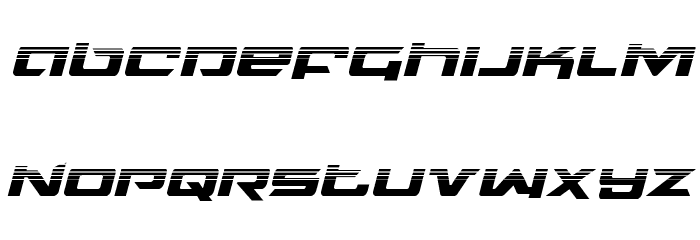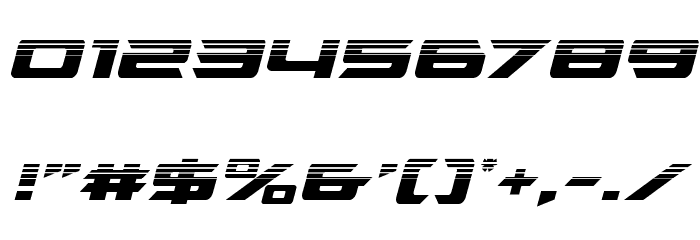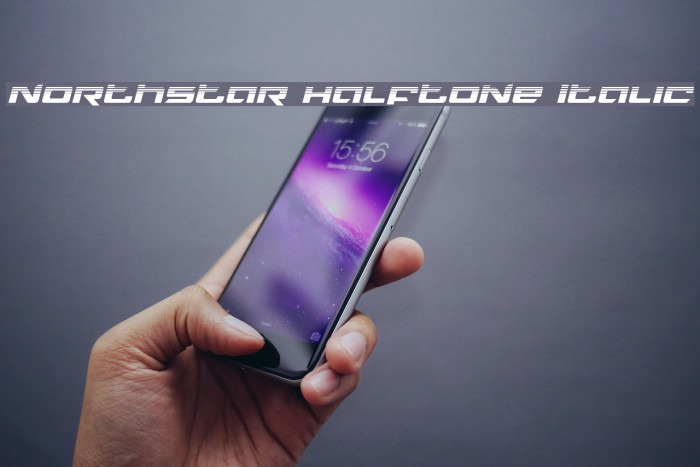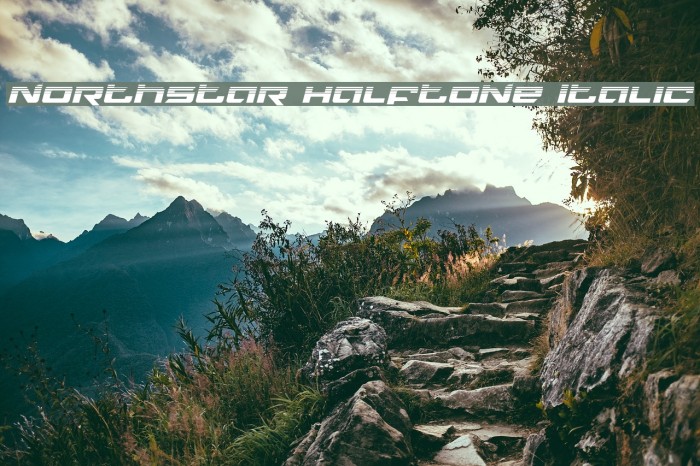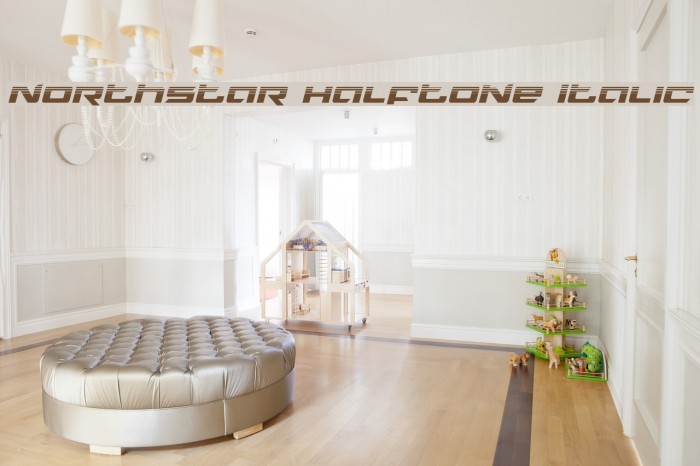
Northstar Halftone Italic Font
This font features a dynamic and futuristic design, characterized by its halftone effect and italicized slant. The characters are bold and geometric, with a distinct horizontal striping pattern that gives a sense of movement and modernity. The uppercase and lowercase letters maintain a consistent style, with sharp angles and clean lines. The numerals and special characters are equally bold, ensuring uniformity across all text elements. This font's unique style makes it stand out, ideal for projects that require a modern and edgy aesthetic.
A bold, italicized font with a futuristic halftone effect and geometric design.
- Proposed Projects: Ideal for sci-fi themed posters, video game graphics, modern branding, and tech-related projects.